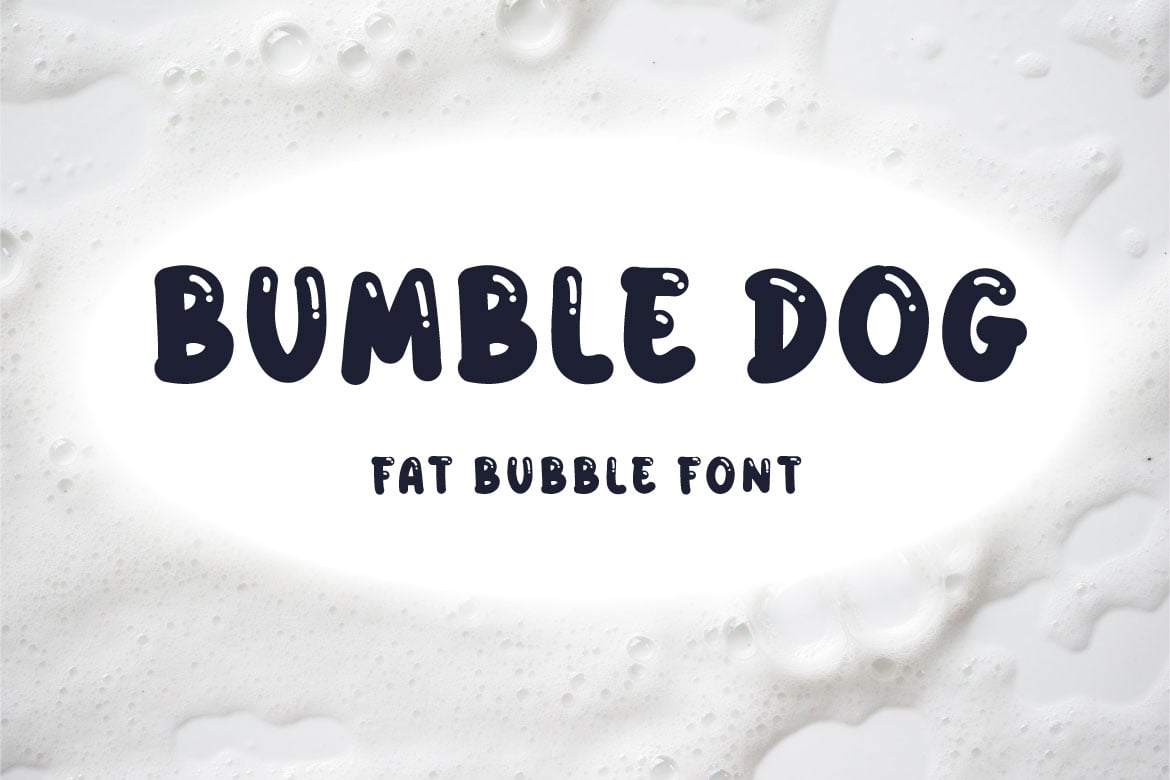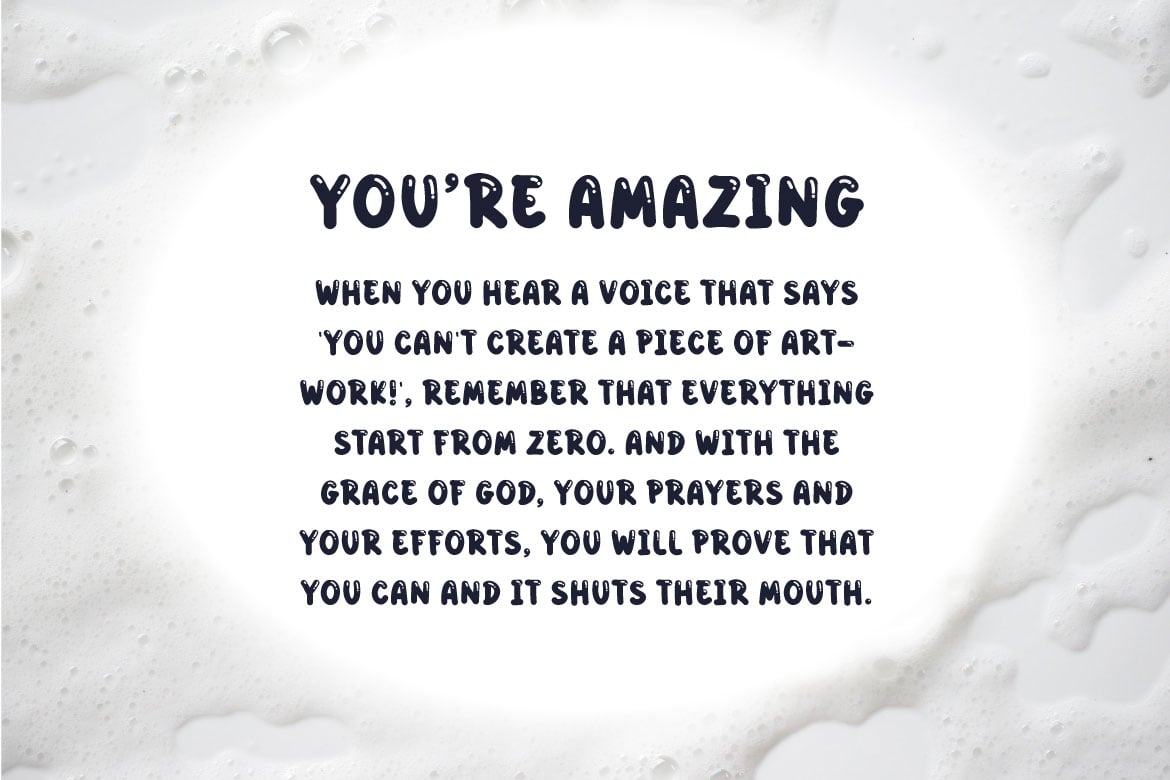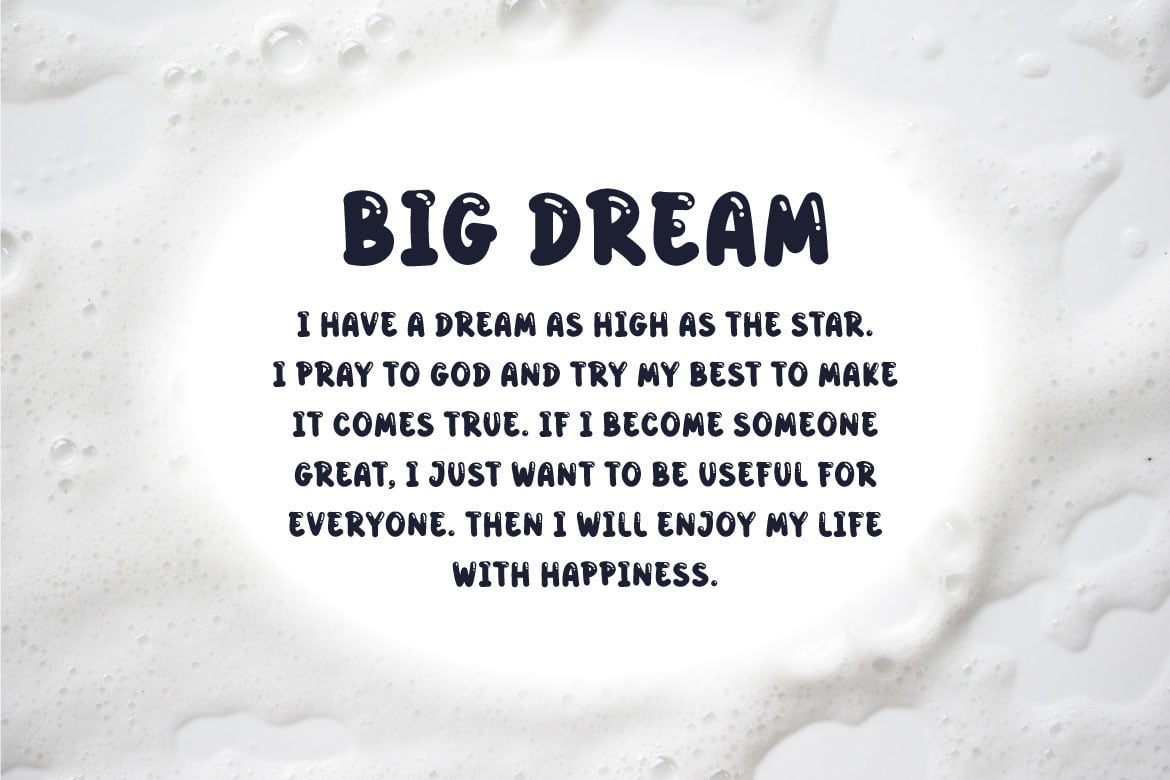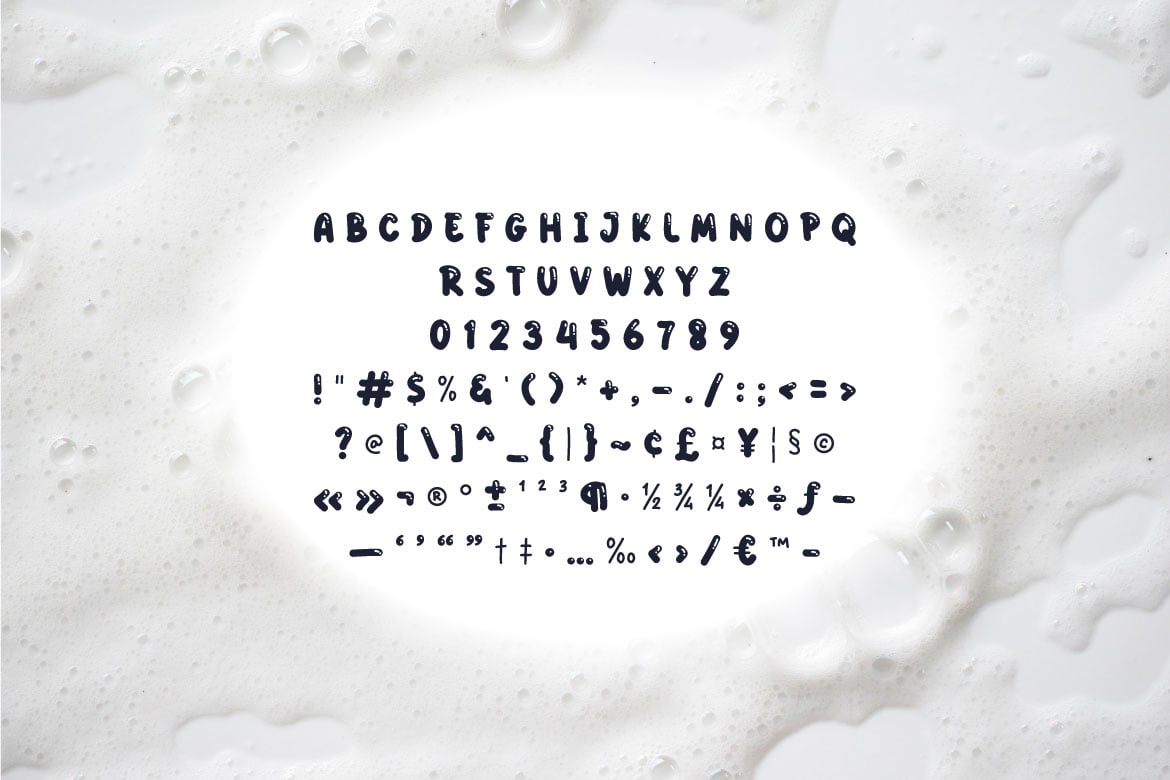
Bumble Dog – Fat Bubble Font
Hello! Bumble Dog is a bold rounded comic font.
Bumble Dog can be used in any works such as comic book, poster, school, flyer, book title, advertisement, social media content, logo and many more.